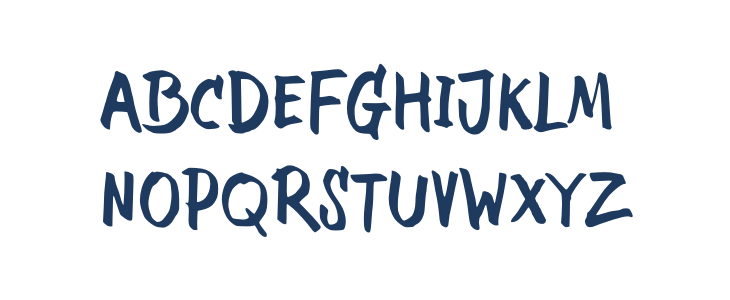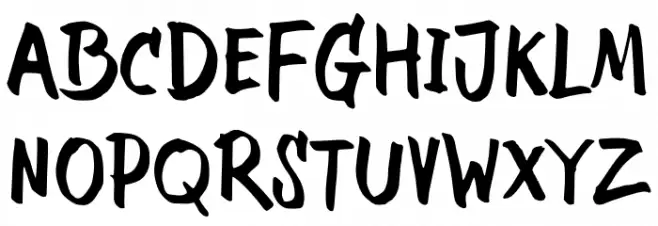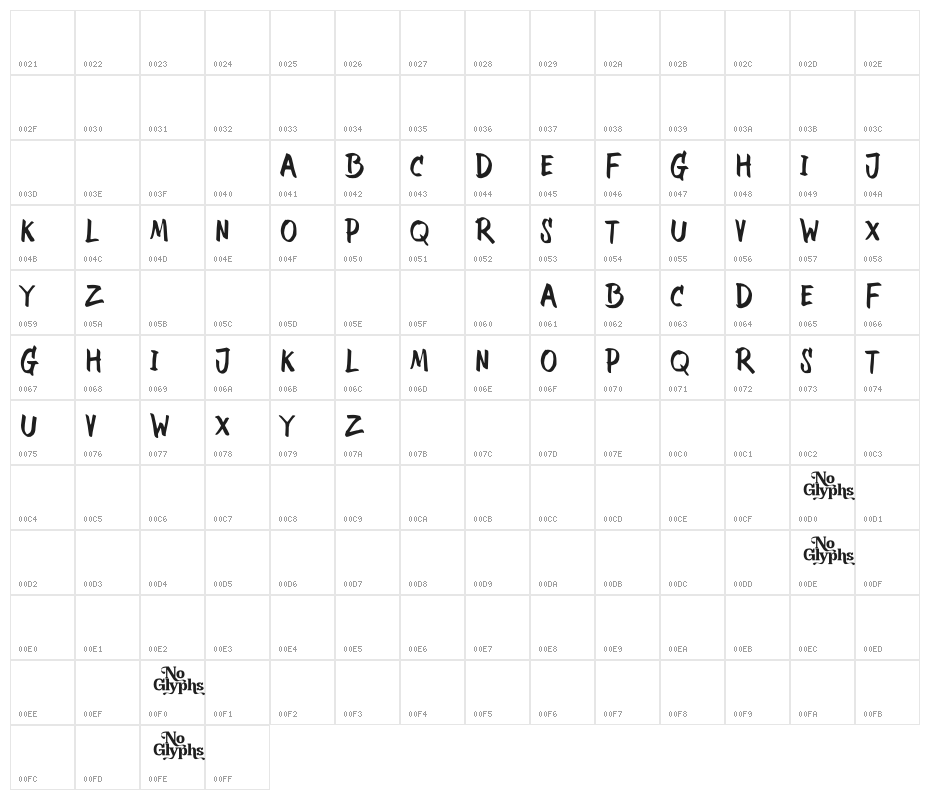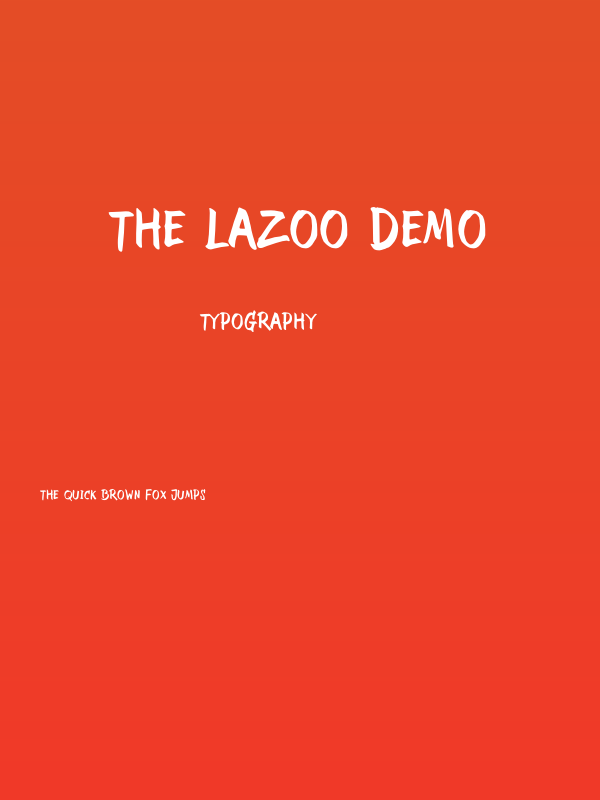
The Lazoo DEMO Font
The Lazoo DEMO Description
A playful, bold handwritten typeface with irregular, brush-like strokes and dynamic letterforms. The characters have a casual, energetic appearance with varying stroke thickness and slightly uneven baselines, giving it a lively and informal feel.
| Overall Style | Playful, Decorative, Casual |
| Use Case | Headlines, Posters, Logos, Informal branding |
| Proposed Projects | ChildrenΓ’β¬β’s books, posters, greeting cards, branding for creative businesses, event invitations. |